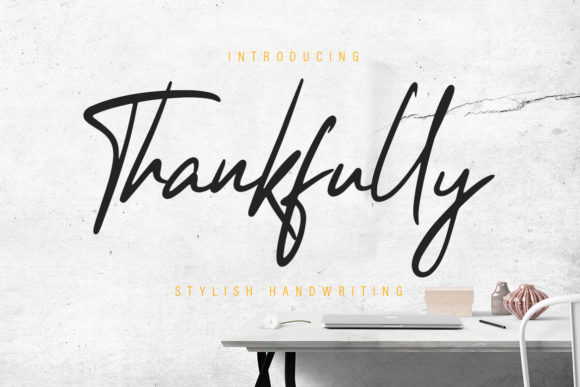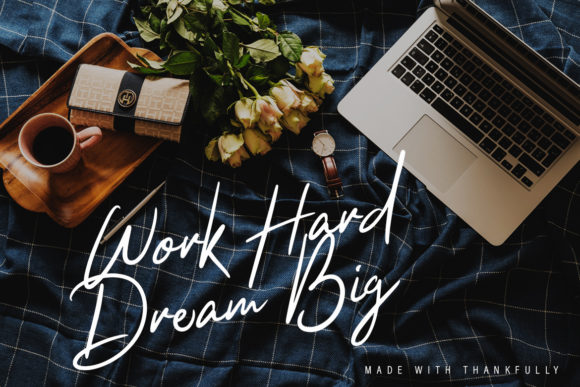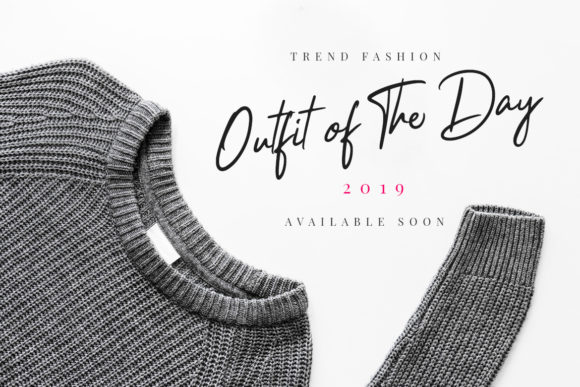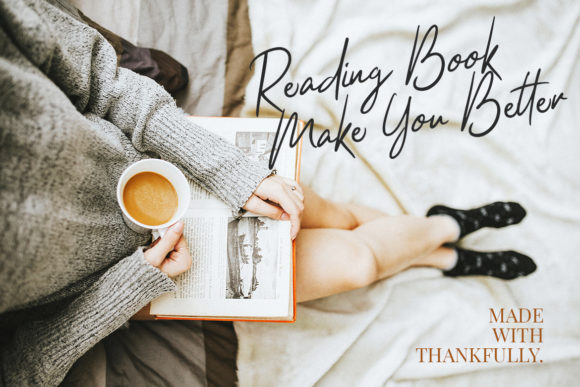
Thankfully Script Font
About Thankfully Script Font
The Thankfully is a simple, yet elegant handwritten font. It’s featuring straightforward, classy and very beautiful characters.
It’s perfect for branding projects, logos, wedding designs, social media posts, advertisements, product packaging,and every other design which needs a handwritten feel.